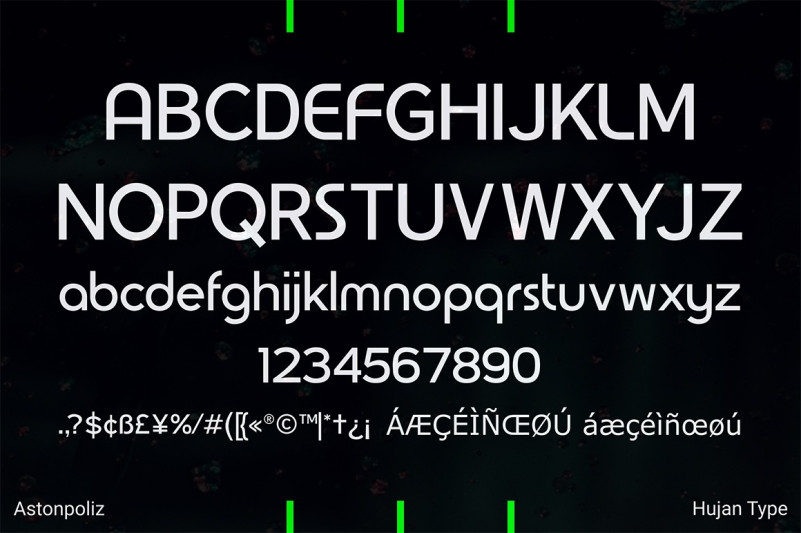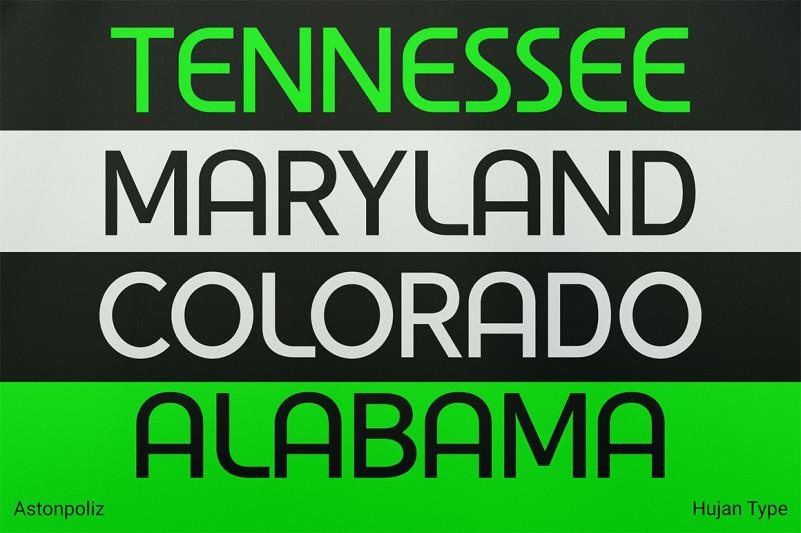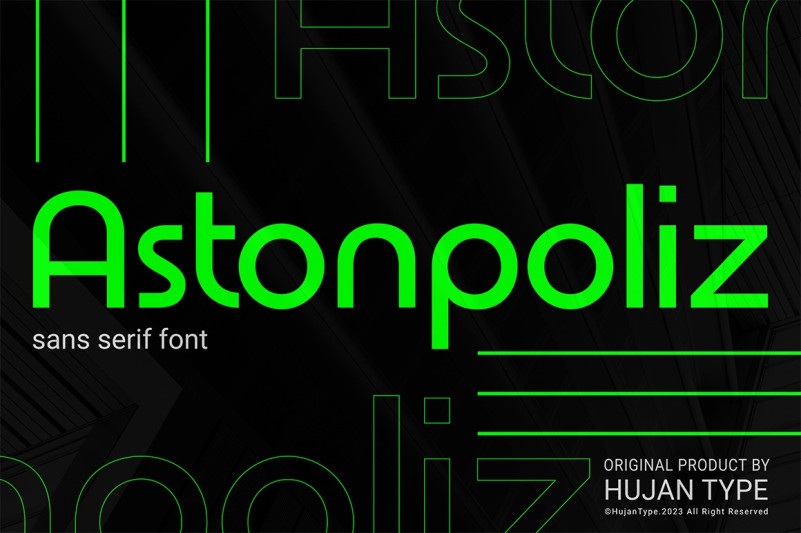
Astonpoliz Font
Astonpoliz Sans Serif Font is based on geometric shapes and have no contrast between strokes.
This font suitable for your modern style projects.